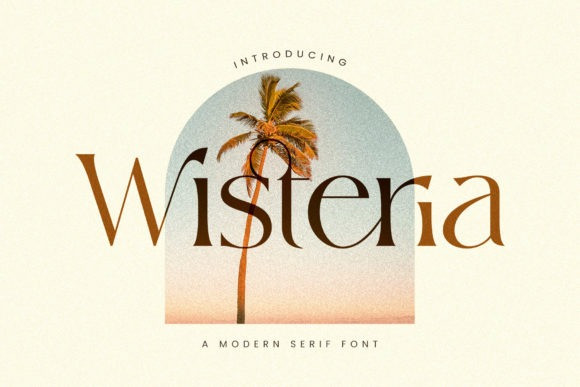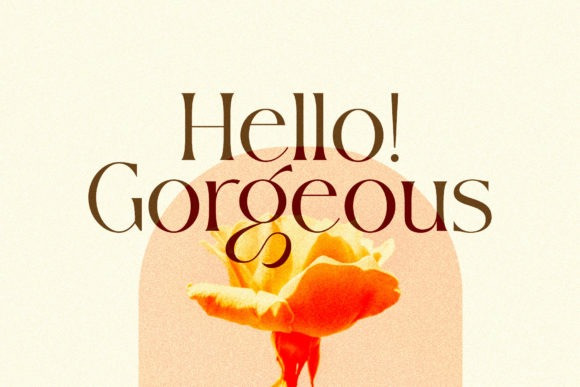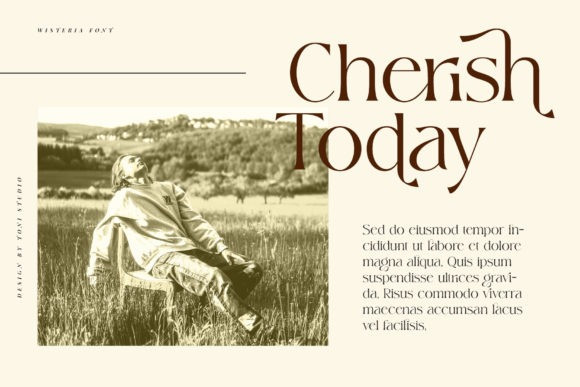
Wisteria Font
Wisteria is both modern and nostalgic and works great for logos, magazines, social media. Already matched up and ready to be used together for your next design, this font reads as elegant, stylish, classy, chic and modern. Wisteria is PUA encoded, which means you can access all of the glyphs and swashes with ease!